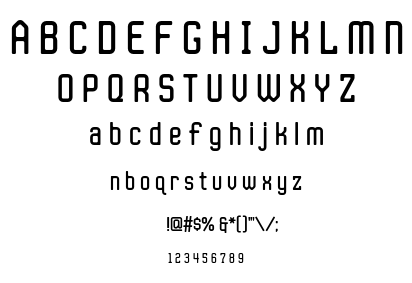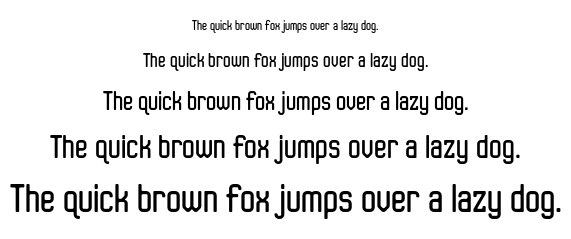
If you wish to use this font commercially “as downloaded,” a PayPal donation not to exceed $5 US is always appreciated. Use the Donate button on this page for your convenience. Everyone remembers their first. JLS Space was my first. It was the first computer format font that I created. The font was inspired by the sci-fi movie posters, book covers and comic books of my childhood. Its crude letterforms were conjured in an all night marathon session with no sketches and no planning. A simple character set, it consisted of upper case, lower case, numbers and basic punctuation. But, the project was little more than an interesting exercise, and JLS Space faded into digital limbo. This unfortunate font was ignored and lost for fifteen years. Mike Adkins, my co-conspirator, found and rescued the font file from the depths of a failing hard drive. He sent the file to me as a curiosity – a glimpse back at our humble beginnings. I started puttering around with it on a whim. Without really trying, Data Gothic began to form. The interesting letter forms in Data and Space Gothic struck a cord, and I was inspired to complete the project almost twenty years after it was started.
JLS Space Gothic was inspired by the OCR and MICR fonts of the science fiction genre. Today, its character will enhance terms like Computer Diagnostic or Space Age Polymer. Posters, titles and displays will boldly blast off into the market place with these cybernetic letterforms. If Space Gothic is retro and seems limited in its genre, Data Gothic is contemporary with a broad spectrum of uses. This futuristic gothic doesn’t sacrifice legibility for style. As a screen font, JLS Data Gothic is excellent for technical specifications, on screen dialogue, labeling, etc. In print, Data Gothic is a great font for text in manuals, schematics, maps and diagrams.